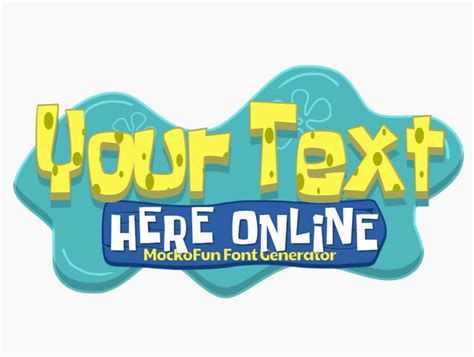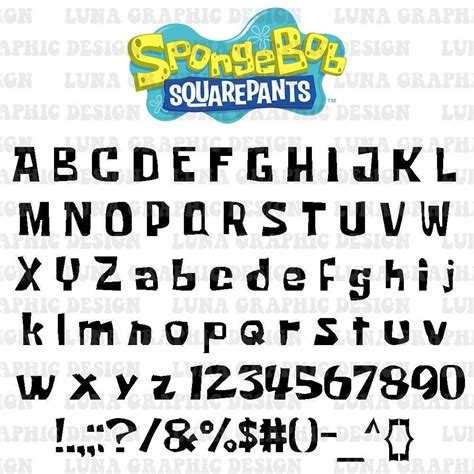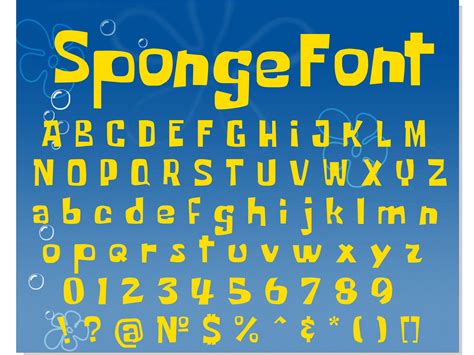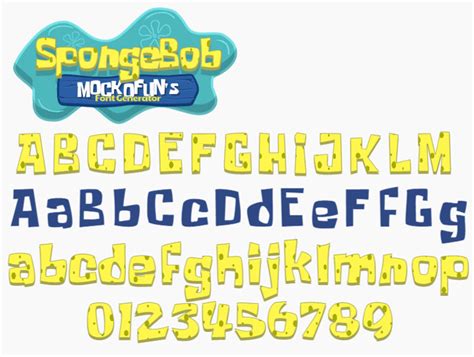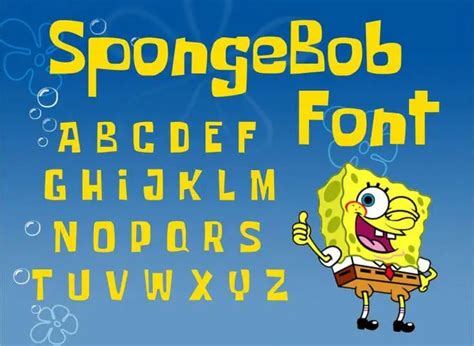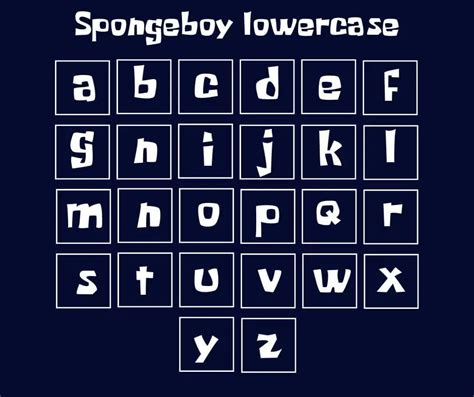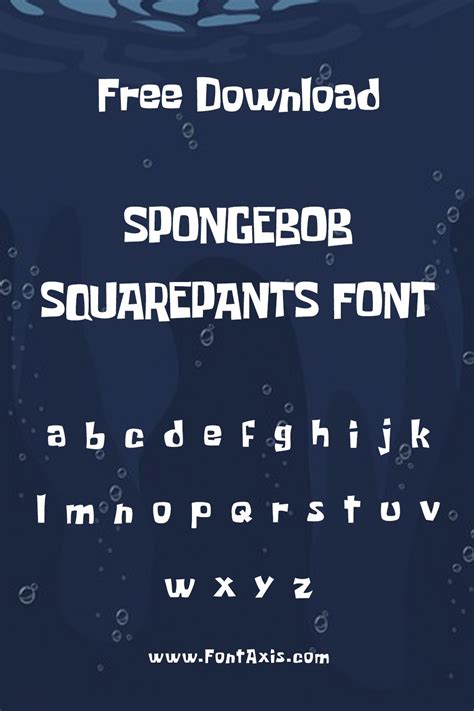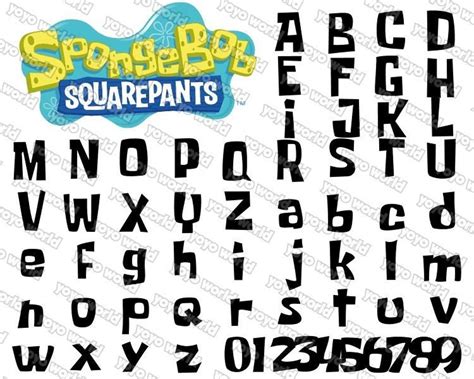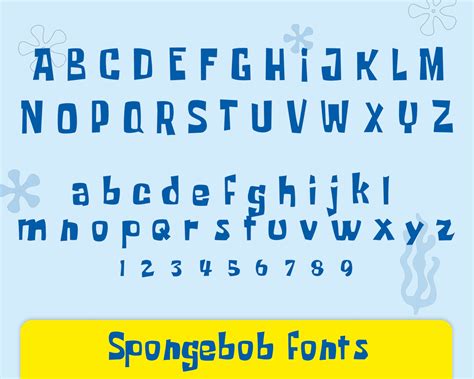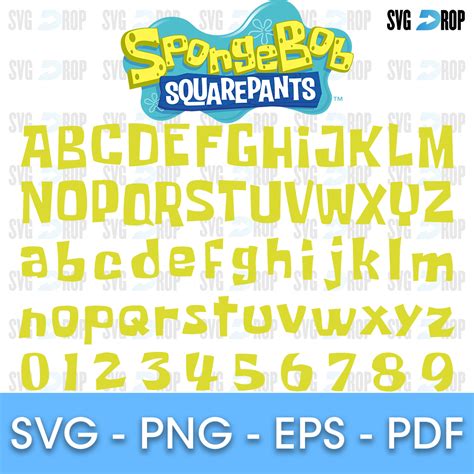
SPONGEBOB THE FONT
Introducing Spongebob the Font, a playful and whimsical font inspired by the beloved animated character, Spongebob Squarepants. This font is a unique creation that captures the essence of Spongebob's quirky personality and vibrant underwater world. With its curved lines and playful letterforms, Spongebob the Font brings a touch of fun and imagination to any design project.
The font features a range of weights, from light to bold, allowing designers to create various styles and effects. Each character is carefully crafted to resemble Spongebob's iconic appearance, with his square shape and bright yellow color. The font also includes special characters and symbols that reflect Spongebob's world, such as his best friend, Patrick Star, and the famous Krusty Krab restaurant.